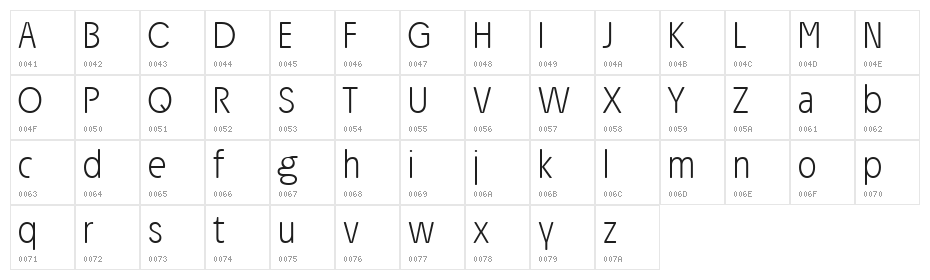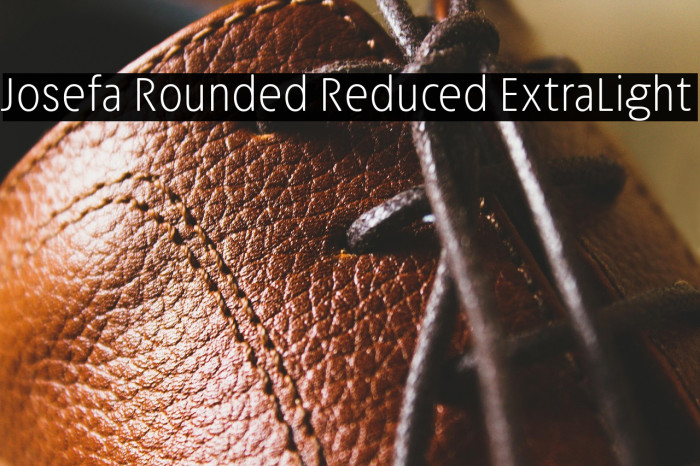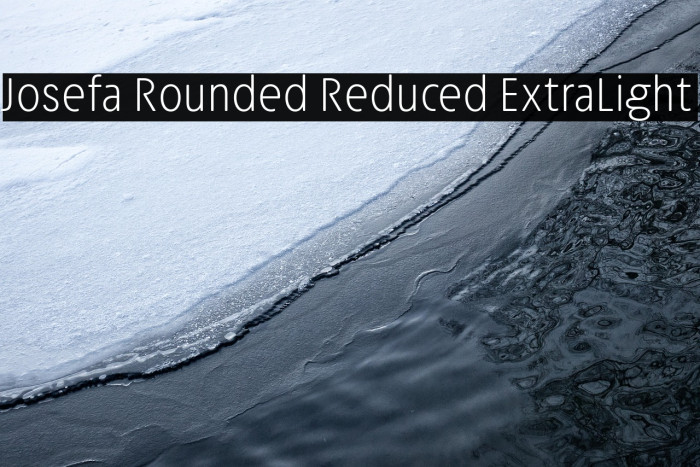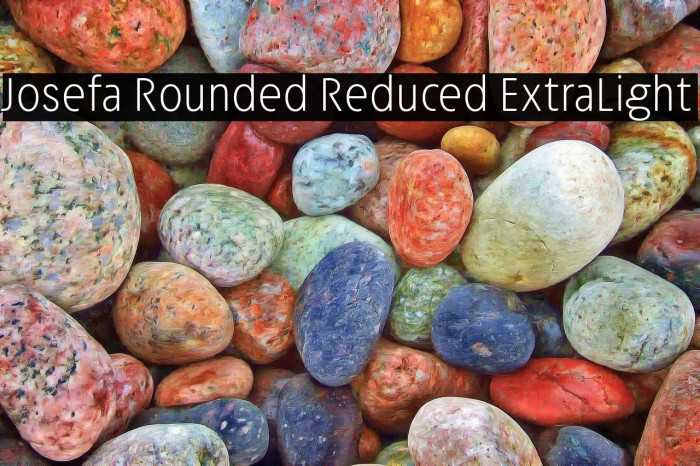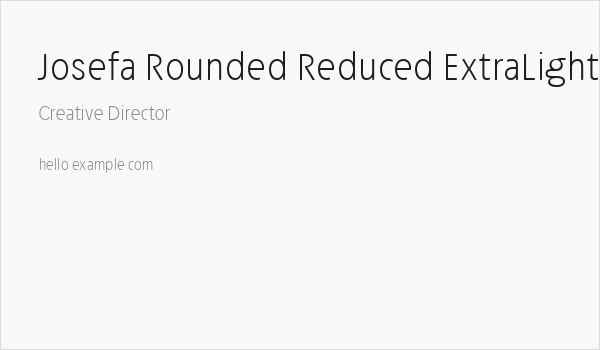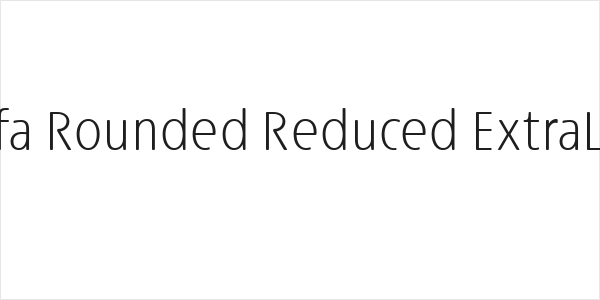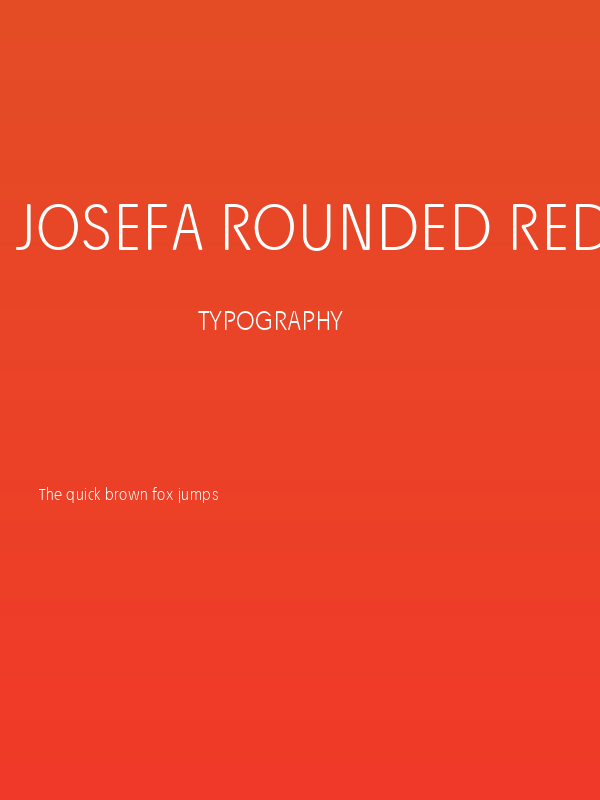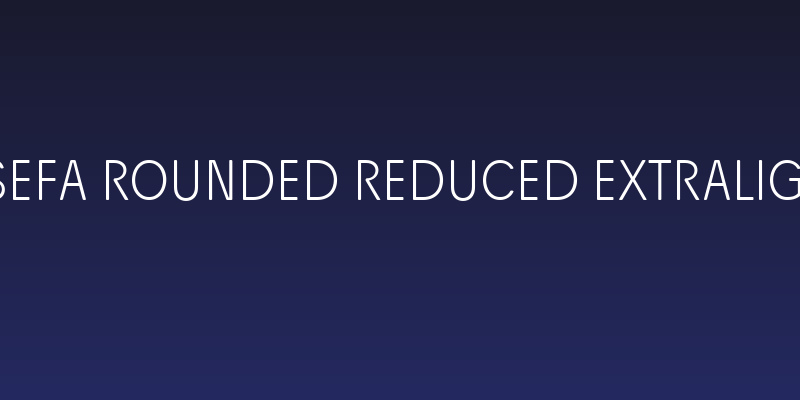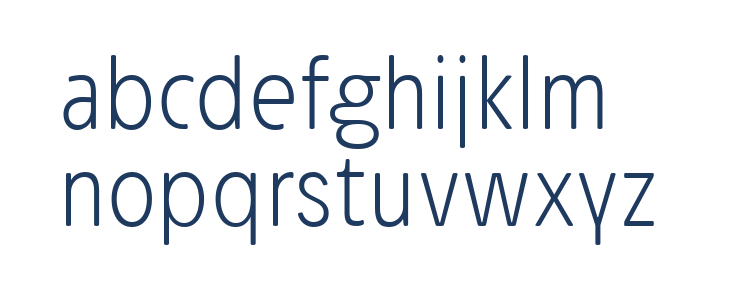
Josefa Rounded Reduced ExtraLight Font
Josefa Rounded Reduced ExtraLight Description
This typeface features a clean and modern aesthetic with rounded edges, giving it a friendly and approachable appearance. The characters are evenly spaced, maintaining a consistent and harmonious look throughout. The strokes are uniform in thickness, contributing to a minimalist and contemporary feel. The uppercase and lowercase letters are well-proportioned, ensuring readability and versatility. This font is suitable for a variety of applications, from digital interfaces to print media, where a modern and clean look is desired.
| Use Case | Headlines, Body text, Logos |
| Proposed Projects | Ideal for branding, web design, user interfaces, and print materials requiring a modern touch. |